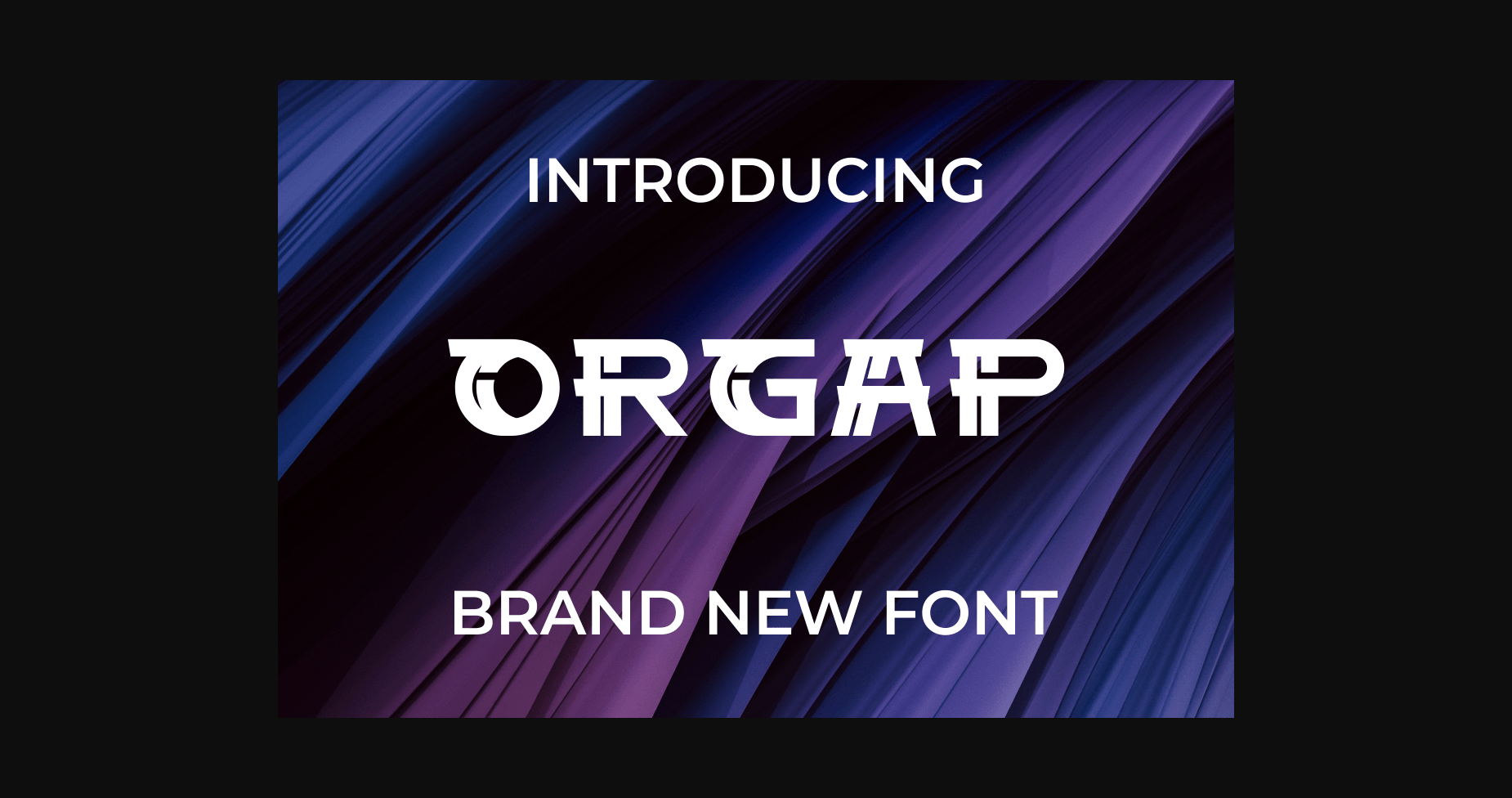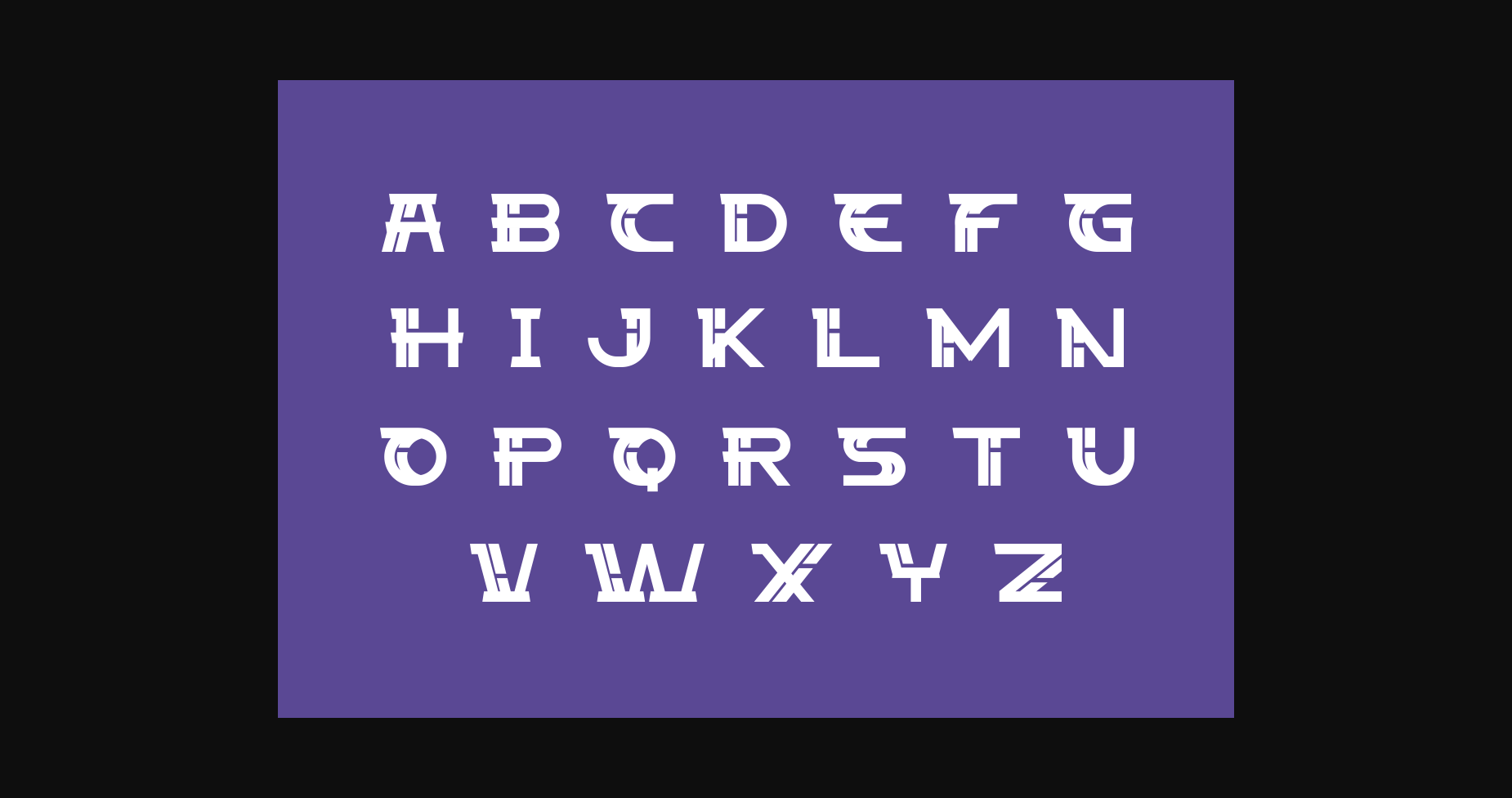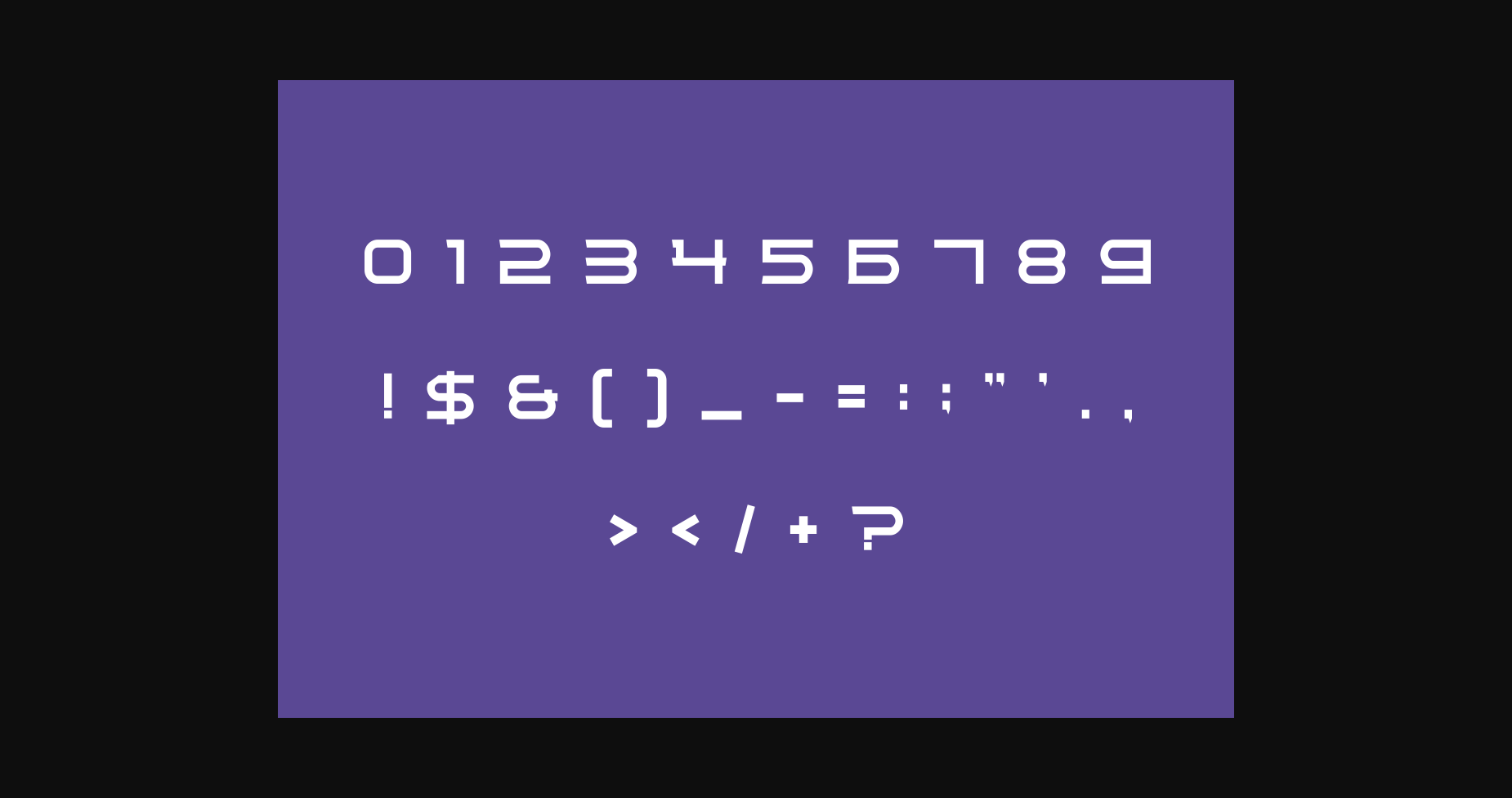
About Orgap Font
ORGAP is a modern, bold and authentic display font. It is suitable and could prove outstanding for multiple branding projects like logos, t-shirts printing, esports and many more.